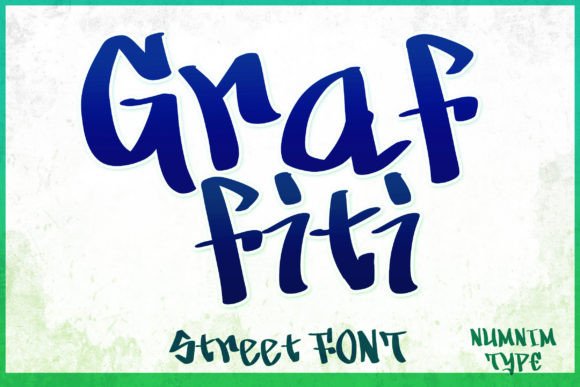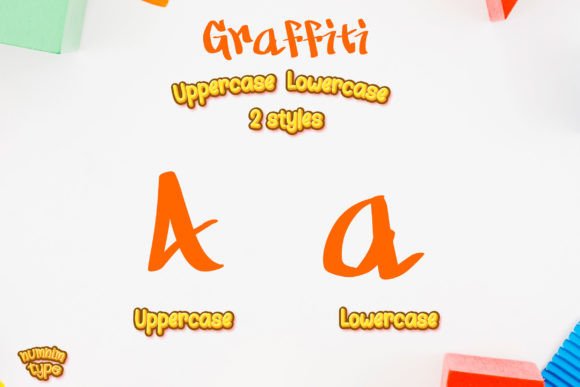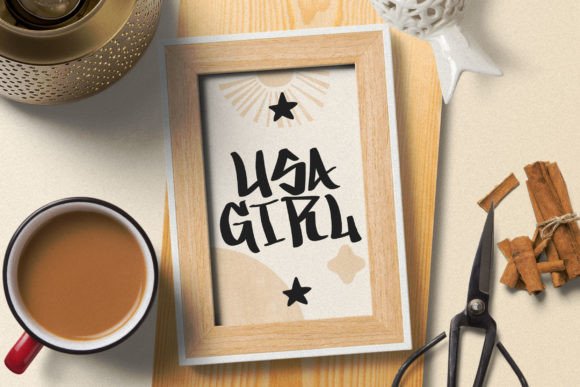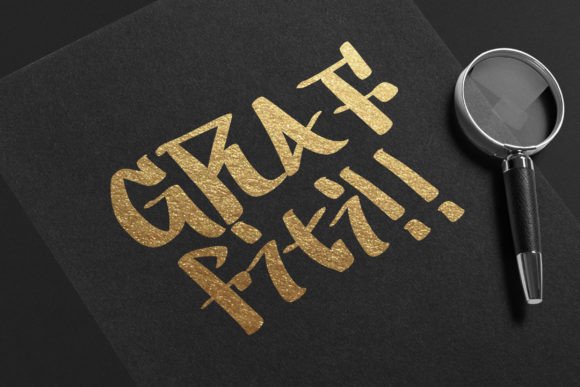
Graffiti Font
About the Graffiti Font
Discover the charm of Graffiti Font. This font is a perfect blend of modern aesthetics and classic appeal. Graffiti is a cool and uniquely crafted Street font. Its fun and playful characters make it the perfect font for stickers, mugs, t-shirts, ornaments, Street Graffiti event cards, event invitations, and many more! This font is PUA encoded which means you can access all glyphs and swashes with ease!
Graffiti Font’s bold and playful energy makes it ideal for projects needing a youthful, rebellious feel. It excels in headlines, short text blocks on posters, and branding for streetwear brands, skate shops, or music festivals. Avoid using it for body text or UI elements; the highly stylized glyphs would compromise readability in longer passages.
Consider pairing Graffiti Font with a clean sans-serif like Open Sans for contrast and readability in supporting text. For a more vintage feel, a slightly distressed serif like Playfair Display could work well. Alternatively, a geometric sans-serif, such as Montserrat, provides a modern counterpoint to the font’s organic forms.
The font’s core personality is undeniably bold and energetic, lending itself to projects that need to express a sense of youthful rebellion or urban street style. Its playful swashes add a unique touch, enhancing its visual impact, but should be used sparingly to maintain clarity.
Graffiti Font Usage Examples
Graffiti Font Example